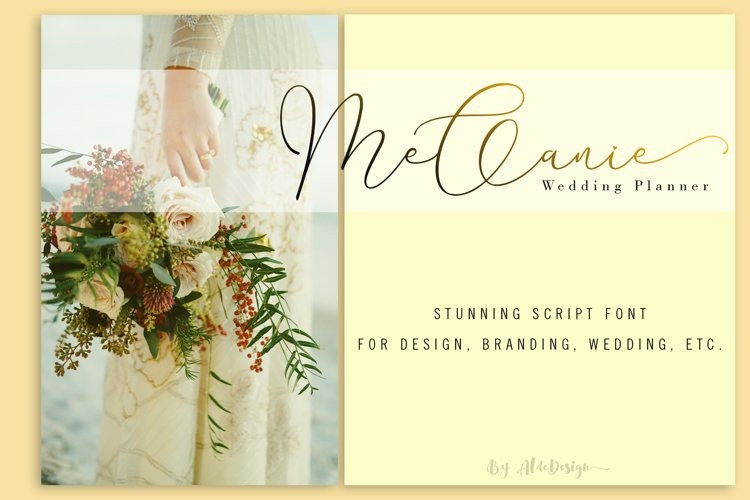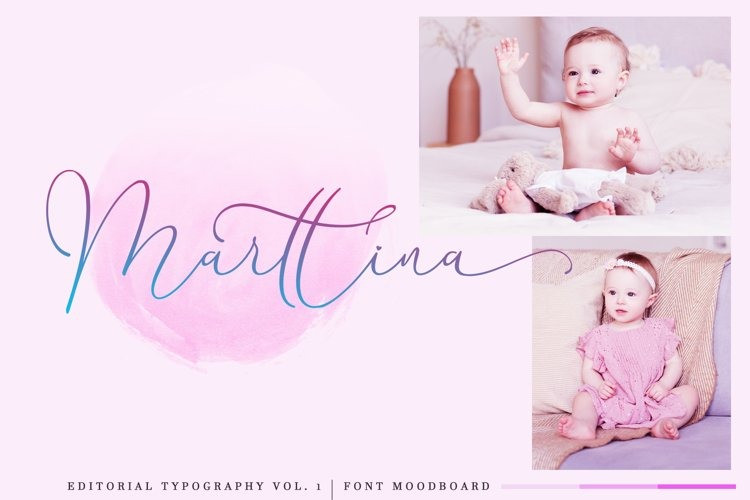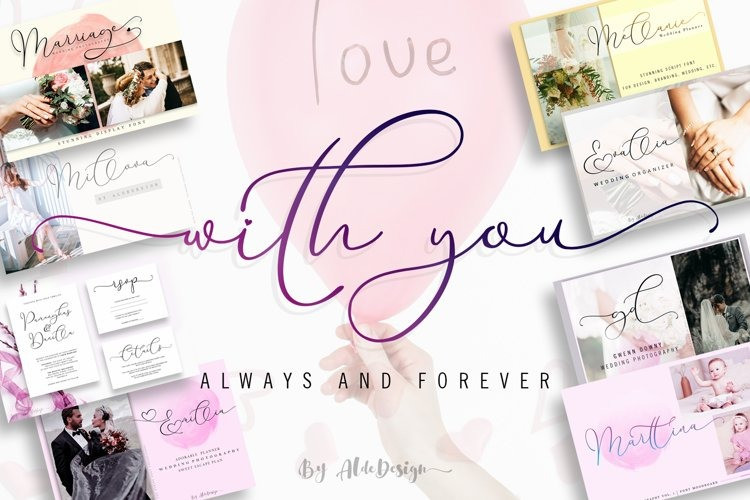
Shallamander Handwritten Font
Shallamander made from handmade lettering with natural ligatures. Is very suit to create branding, wedding kit, or small bussiness with handcrafted concept.